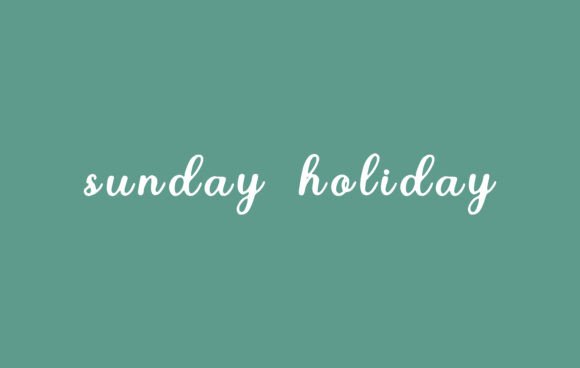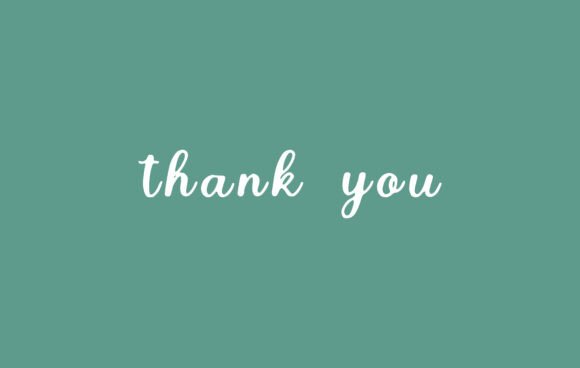
Introduction to Nostalgia Press Font
Nostalgia Press font is an authentic handwritten font with a romantic touch.
Key Features of Nostalgia Press Font
Why Choose Nostalgia Press Font?
Nostalgia Press Font offers exceptional quality and versatility, making it a valuable addition to your design toolkit. Whether you’re creating for personal projects or commercial use, Nostalgia Press Font delivers professional results.